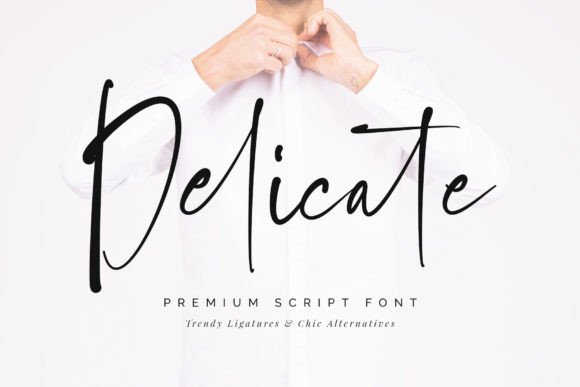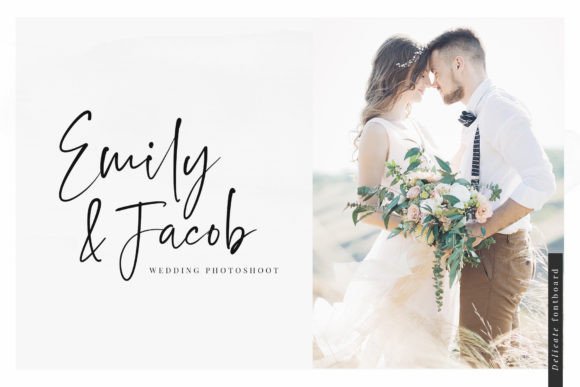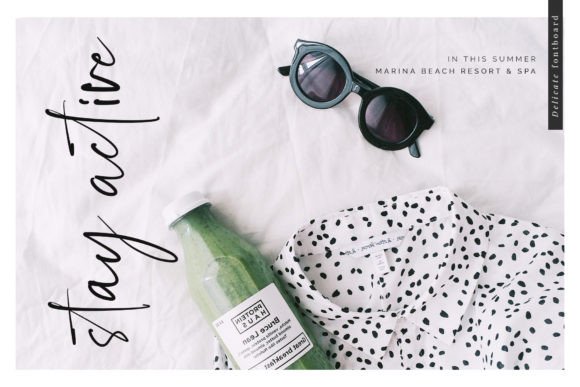
About Delicate Font
Delicate is a stylish handwritten font with a smooth and clean appearance. Whether you’re looking for fonts for Instagram or calligraphy scripts for DIY projects, this font will turn any creative idea into a true piece of art!